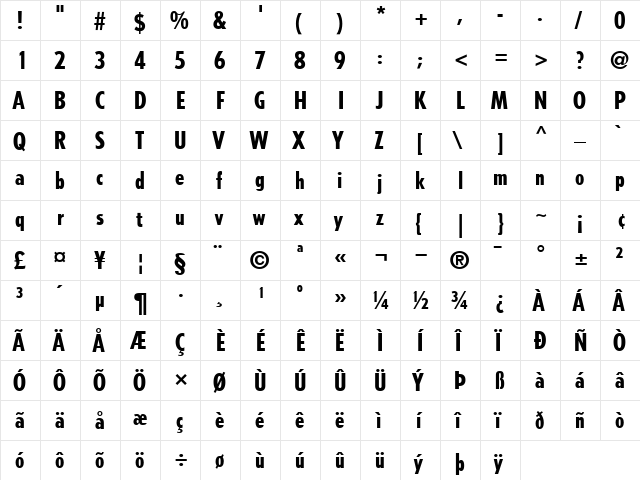
Tempo-CondensedHeavy Heavy
Design Context for Tempo-CondensedHeavy Typeface
Tempo-CondensedHeavy takes a measured approach to typography — its balanced proportions and neutral character make it a reliable workhorse for both digital and print work. Its narrow stance lets it pack a punch even in space-constrained designs.